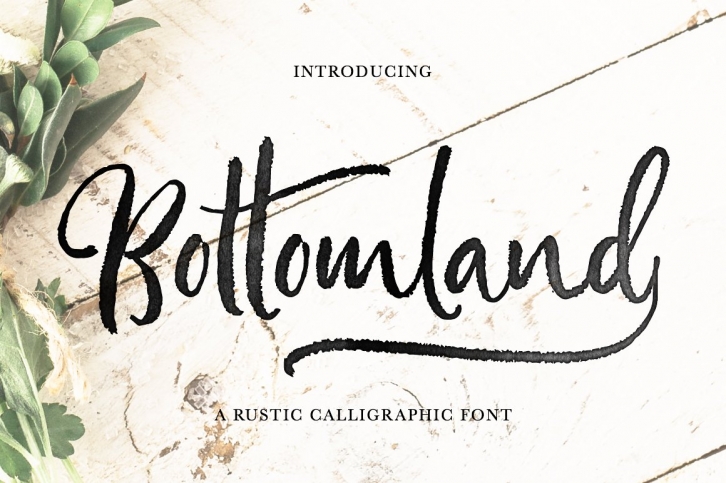
Introducing Bottomland - Rustic ink handwritten script with passes as a custom hand-lettered piece , rather than something that is very obviously a typed out font. A slightly bouncing baseline, and slight variances in character width and height help create this feel.
Bottomland (OTF & TTF) - An organic-inspired font, complete with decorative swashes, initial and endings flourish elements, ligatures and select alternates.